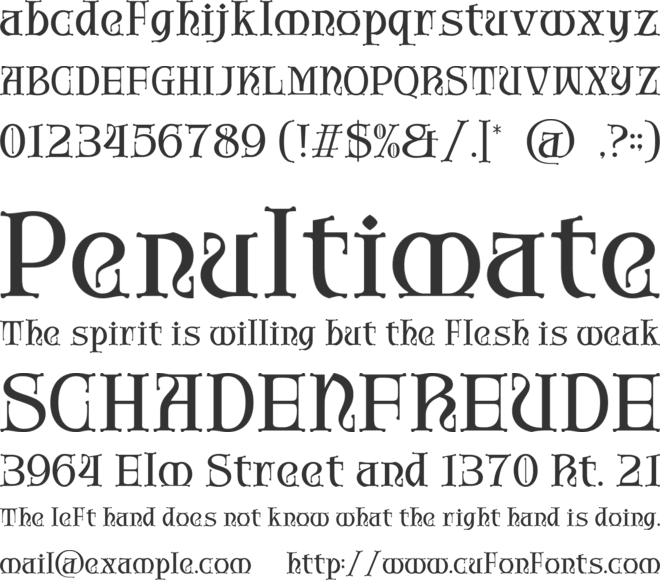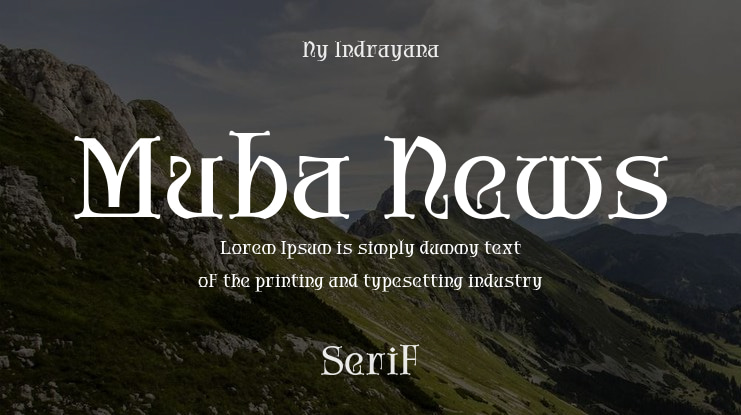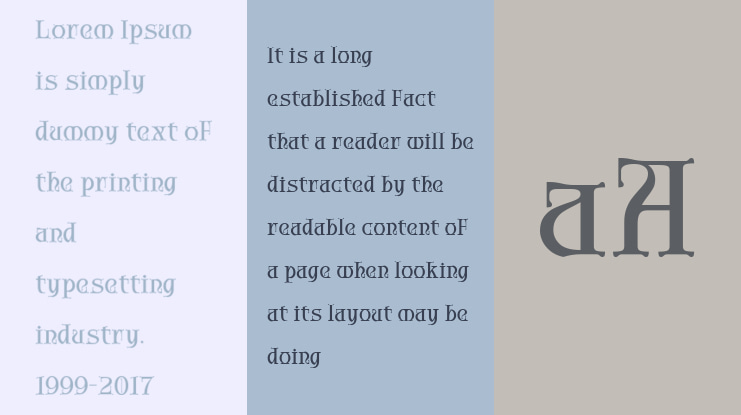
Muba News Font
Muba News Typeface: An Elegant Art Nouveau Journey
Step back in time and capture the enchanting spirit of the Art Nouveau era with Muba News, a breathtakingly detailed vintage ornament typeface from the artisans at Alit Design Studio. This font is not merely a set of letters; it is a masterpiece of design, meticulously handcrafted to bring the organic elegance and intricate beauty of the late 19th and early 20th centuries to your modern creations.